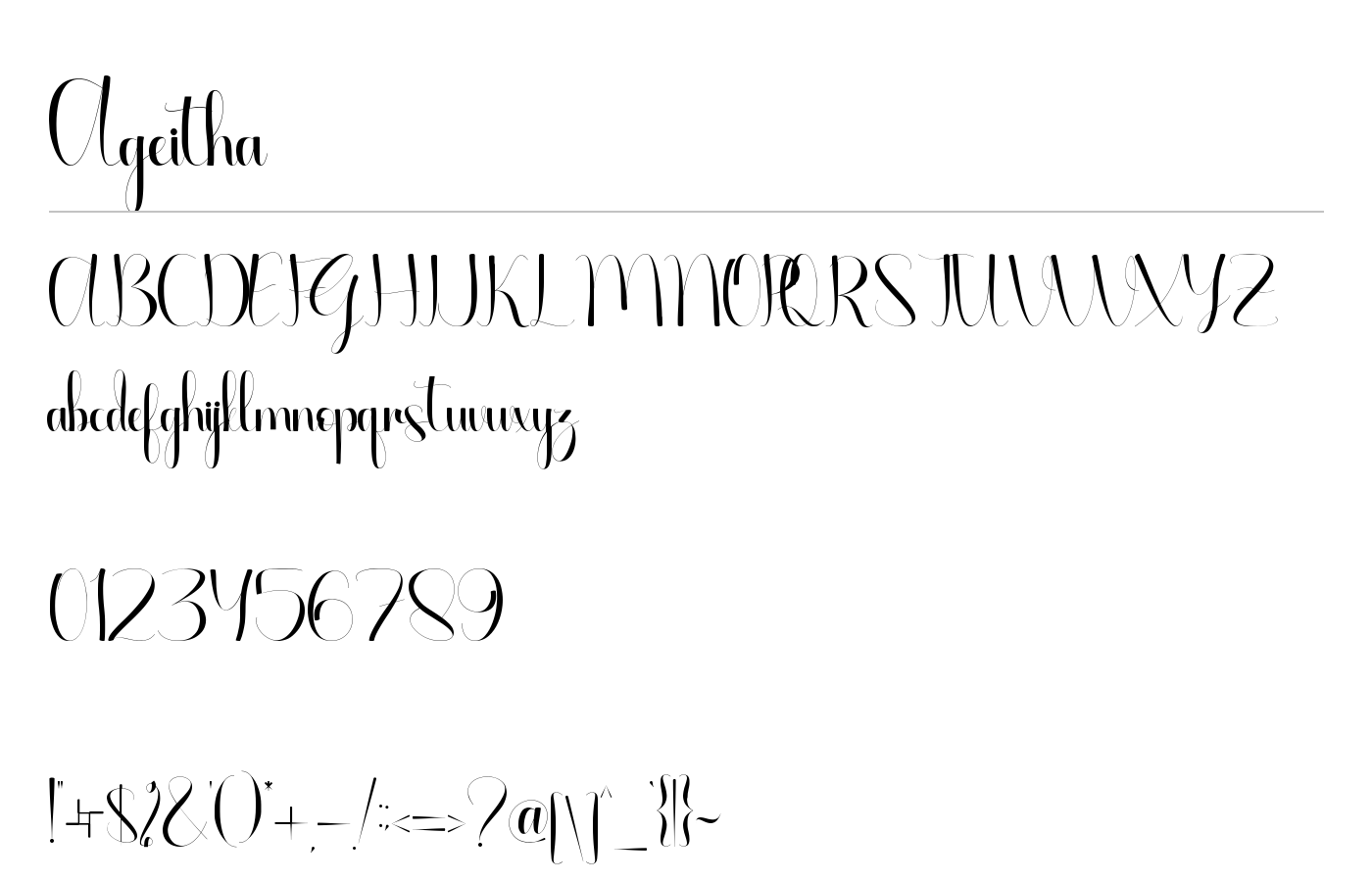
Ageitha is a delicate and elegant script font characterized by its tall, slender letterforms and fine hairline strokes with subtle contrast. Its graceful curves and whimsical flourishes give it a sophisticated yet playful personality, making it ideal for luxury branding, wedding invitations, and stylish editorial designs. This font works best in decorative uses where its refined details can shine, adding a touch of charm and elegance to headlines and logos.
Ageitha Font
About Ageitha Font